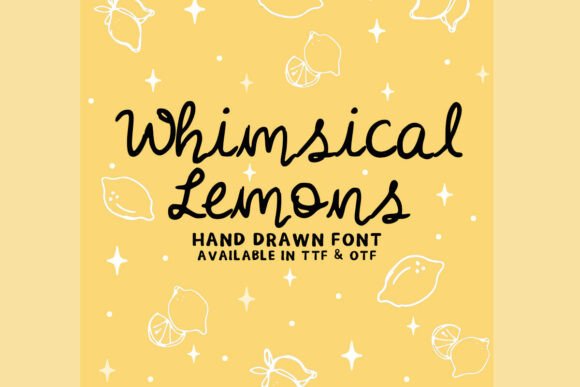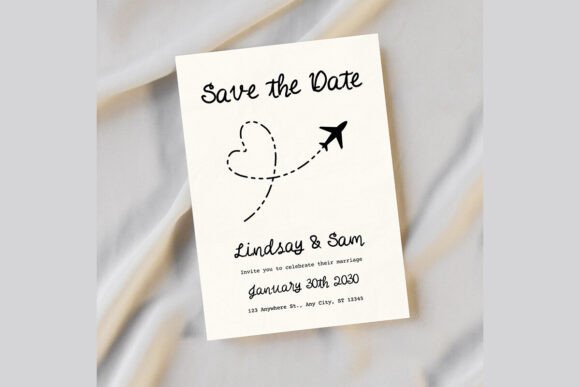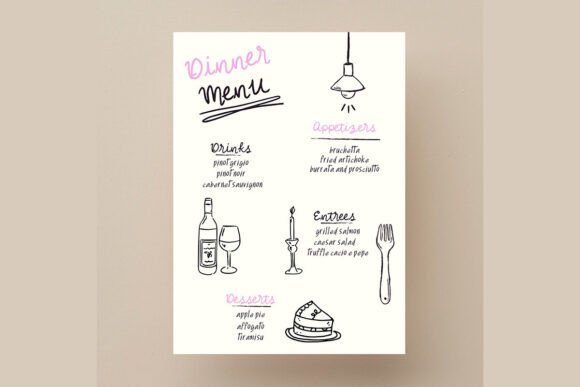
Whimsical Lemon Font
Whimsical Lemons is a fun and playful hand-drawn font with a delightful, quirky charm. Its bouncy, irregular letterforms give it a friendly and organic feel, perfect for branding, invitations, packaging, and creative designs. Whether you’re crafting a cheerful logo or a cute social media post, this font adds a touch of joy and personality to any project.